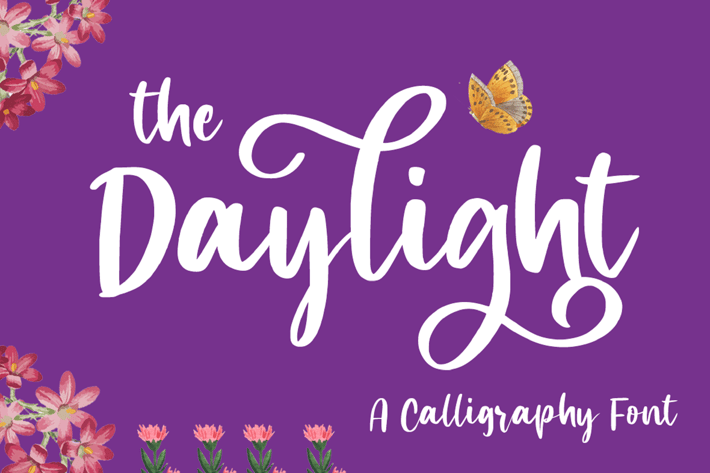
Fun Calligraphy Font
Get ready to transcend to a world of magic, laughter, and butterflies. Your branding will spark delight and engage everyone who sees it!
Introducing The Daylight - A Calligraphy Font.
A beautifully handcrafted calligraphy font that’ll make your guests sing and elevate your projects!
Every swash, stroke, and curve was created to entice happiness and elegance. The ideal font for social media banners; posts, and ads, printed quotes, t-shirt designs, packaging, or even as a modern text overlay to any background image.
The Daylight includes gorgeous swashes and ligatures that give the font even more flair!
Multilingual & Ligature Support
Full sets of Punctuation and Numerals